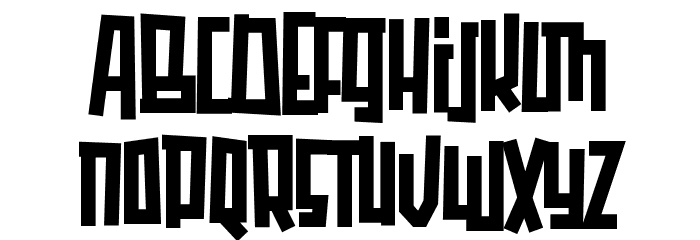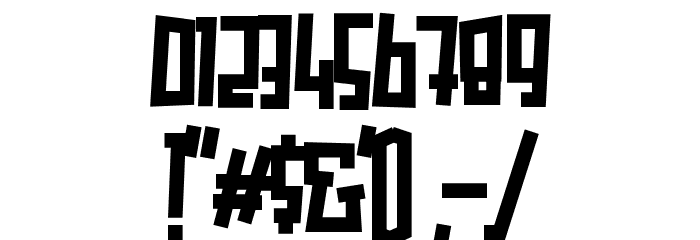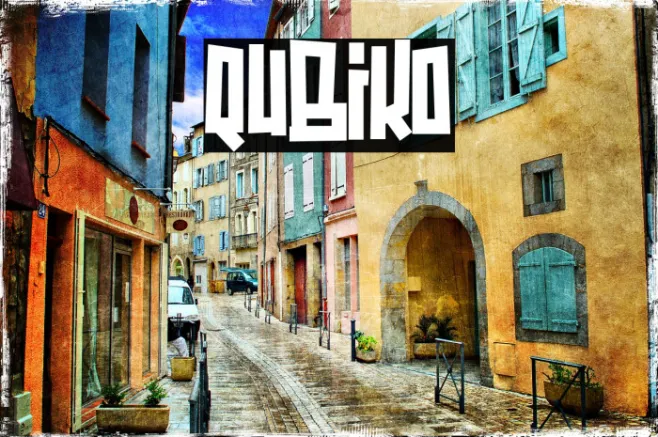
Qubiko Font
This font features a bold, geometric style with a distinct blocky appearance. The characters are designed with sharp angles and straight lines, giving it a modern and edgy look. The uppercase and lowercase letters maintain a consistent height, contributing to a uniform and structured aesthetic. Numbers and special characters follow the same design principles, ensuring a cohesive visual language throughout. The font's unique style makes it stand out, ideal for projects that require a strong visual impact.
A bold, geometric font with a modern, blocky design.
- Proposed Projects: Ideal for posters, logos, branding, and headlines that require a bold statement.